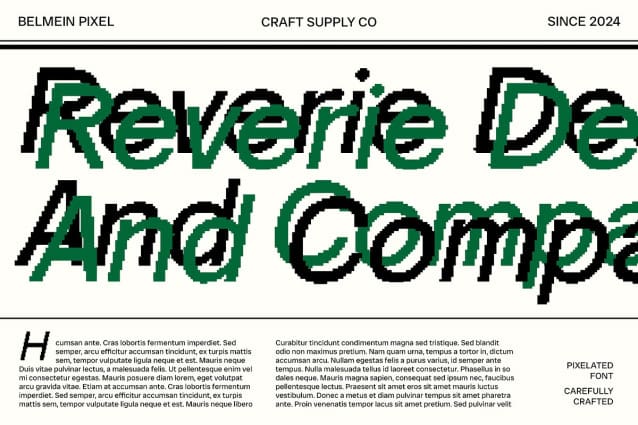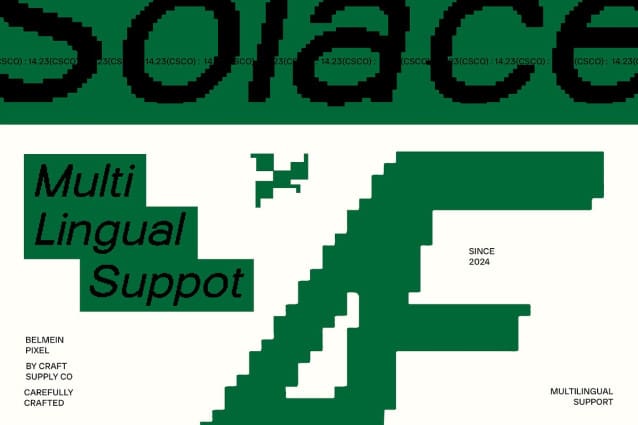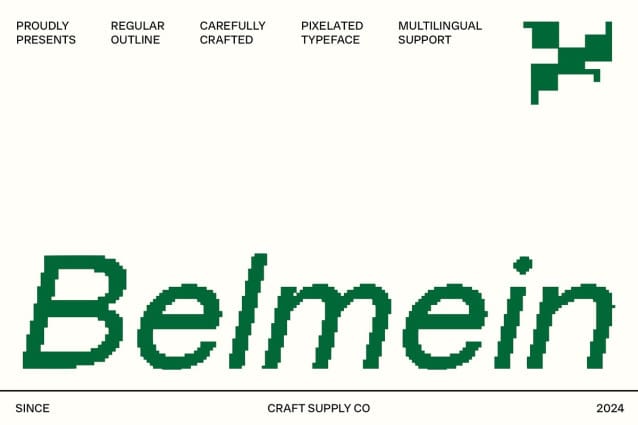
Belmein Pixel Font
Belmein Pixel Font is a modern sans-serif font that fuses grotesque elements with sharp inktrap details and pixel effects. Its solid grotesque form and precise inktraps convey an industrial and futuristic aesthetic, while the pixel effect adds a nostalgic, retro digital vibe.
Bold and Edgy for Strong Visual Impact Ideal for designs requiring a robust, bold appearance, Belmein Pixel excels in game projects, tech posters, modern branding, and digital media. The font’s unique combination of industrial strength and retro charm ensures a dynamic and innovative visual presence.
Perfect for Tech and Digital Applications With its edgy and contemporary style, Belmein Pixel is well-suited for projects that need to stand out in the tech and digital realms. Its distinctive look combines modern sophistication with a playful nod to digital aesthetics, making it perfect for creating memorable and impactful designs.
Elevate Your Design with Belmein Pixel Bring an innovative and bold touch to your projects with Belmein Pixel. Its blend of industrial edge, futuristic elements, and retro pixel effects makes it an ideal choice for designs that demand a strong, memorable impression.